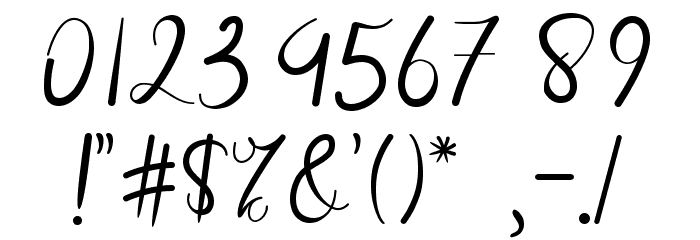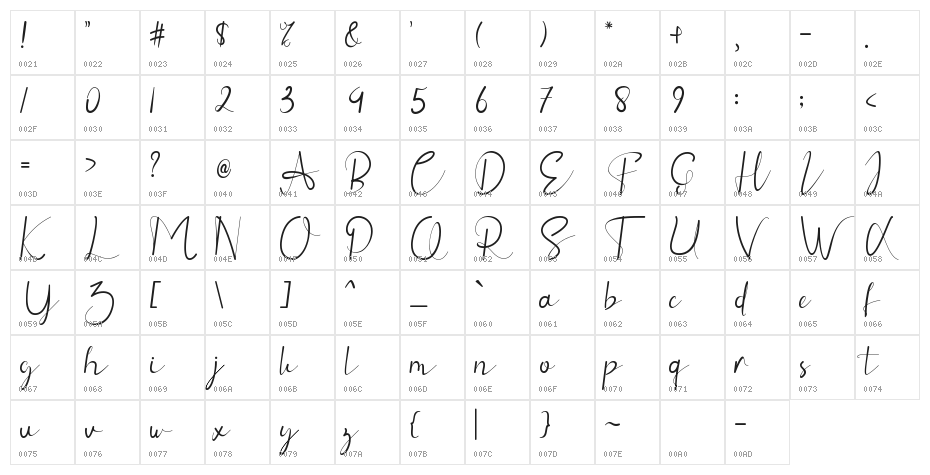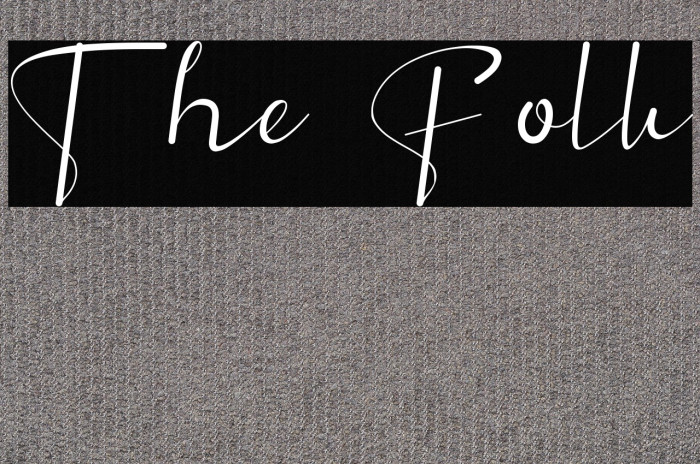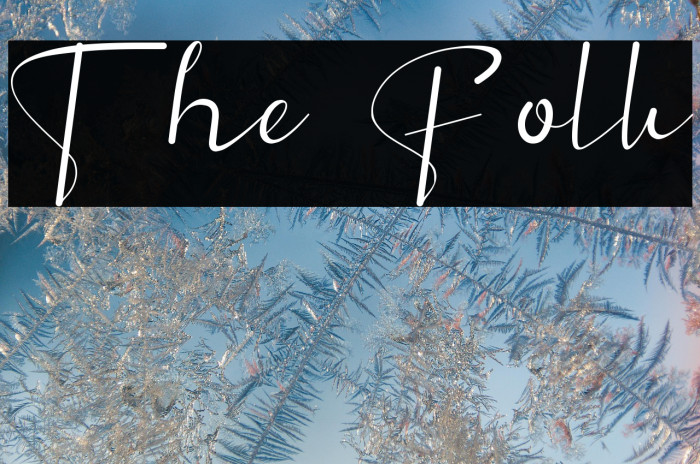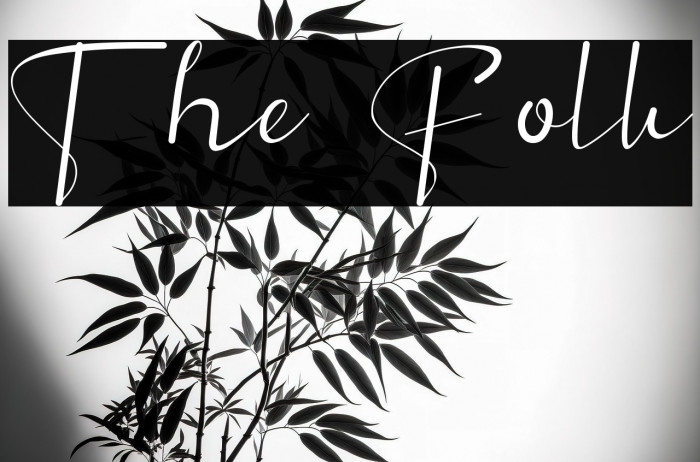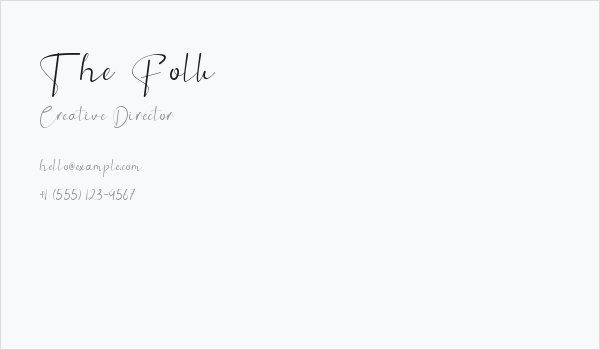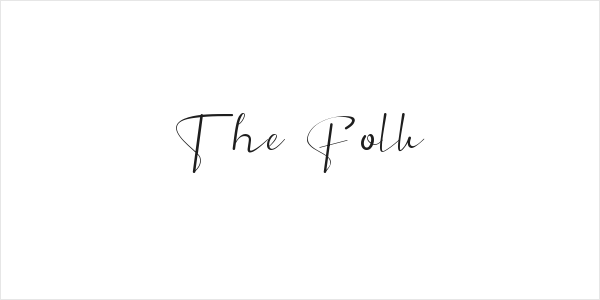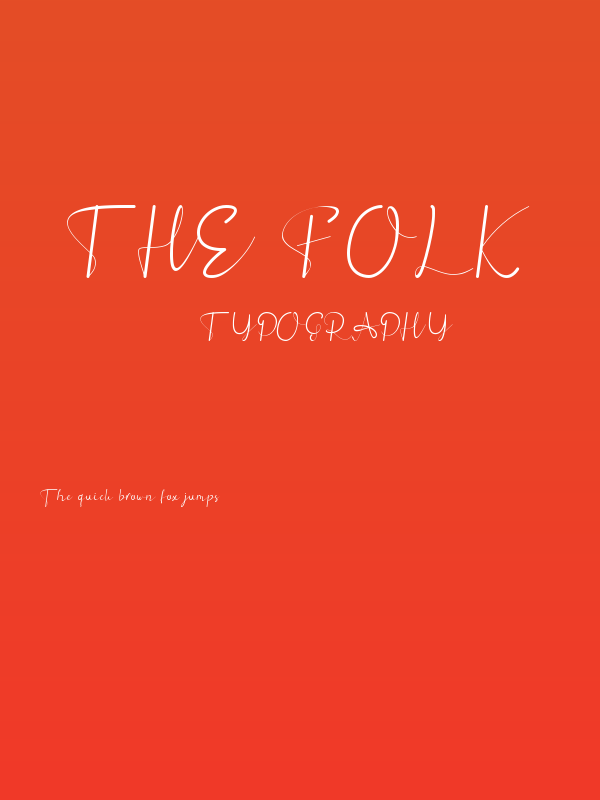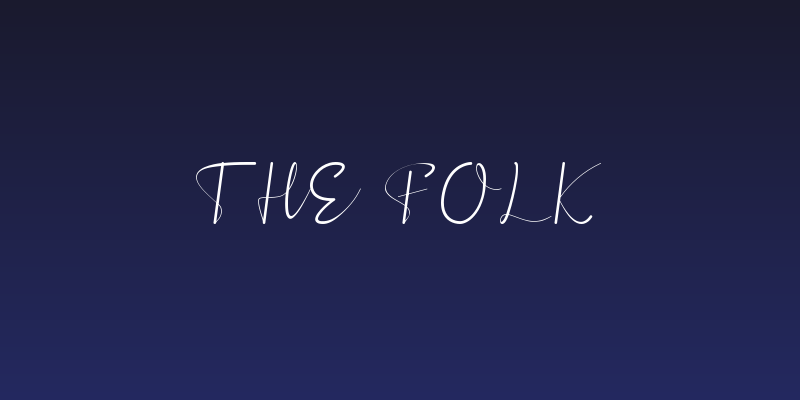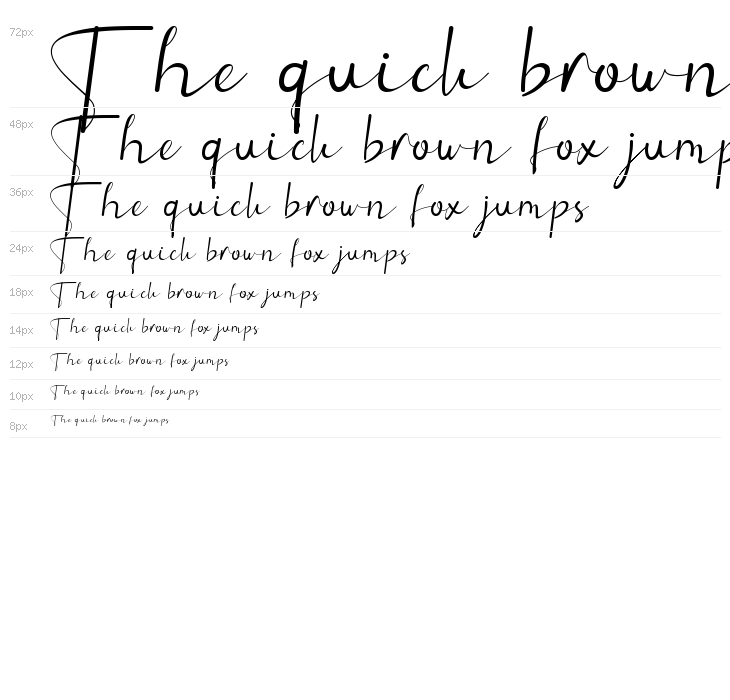
The Folk Font
The Folk Description
This font exhibits a flowing, cursive style that combines elegance with a touch of whimsy. The characters are interconnected, creating a seamless and fluid appearance. The uppercase letters are bold and expressive, while the lowercase letters maintain a consistent rhythm with gentle curves and loops. The numerals are distinct yet harmonize well with the overall script style. Special characters are thoughtfully designed to match the font's aesthetic, adding versatility for various uses. The font's delicate strokes and graceful lines make it suitable for projects that require a personal and artistic touch.